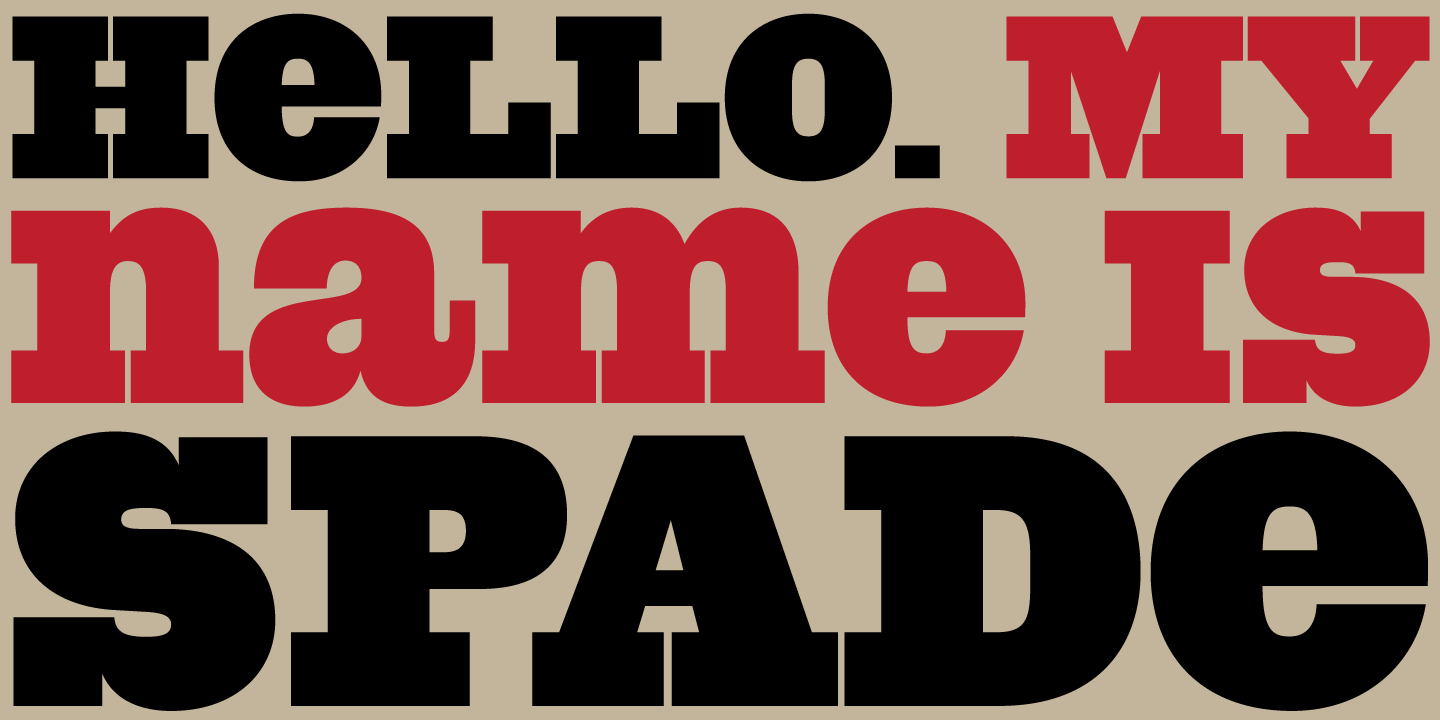
Spade Free Download
Spade Font Free Download
This sharp font is perfect for playing card designs, casino branding, poker tournament promotions, gaming merchandise, card game applications, gambling establishment signage, strategic consulting firms, and competitive gaming campaigns. Its tactical character makes it ideal for projects requiring strategic thinking and calculated risk aesthetics.
Spade Font is exciting because it embodies the precision and strategic intelligence of high-stakes gaming with letterforms that mirror the sharp focus and calculated decisions required in competitive card play. The font features clean angles, confident strokes, and authoritative presence that reflects the mental acuity and strategic thinking of master players. Its competitive personality instantly communicates skill, intelligence, and the thrilling tension of strategic gameplay.
The Spade Font family typically includes multiple strategic weights and gaming variations, along with card suit symbols, gaming ornaments, and competitive decorative elements. Many versions feature alternate characters with varying sharpness levels and special glyphs that enhance the strategic gaming atmosphere and professional tournament aesthetic.
Whether you're developing gaming brands, strategic business consulting, or competitive entertainment venues, Spade Font Free Download provides authentic gaming authority with professional sophistication. This typeface transforms ordinary communications into strategic statements that resonate with players, strategists, and competitive minds who appreciate the art of calculated decision-making. Its distinctive character adds immediate gaming credibility while celebrating the intellectual challenge of Spade Font Free Download and the timeless appeal of strategic thinking that separates champions from casual participants in any competitive endeavor.